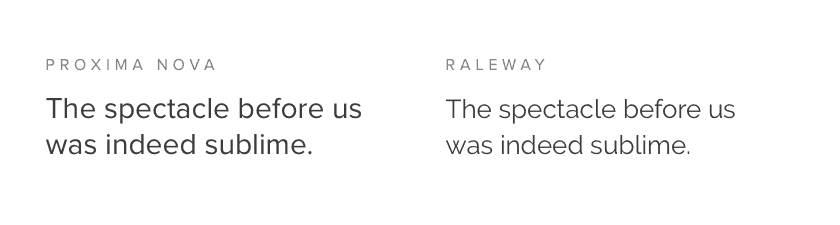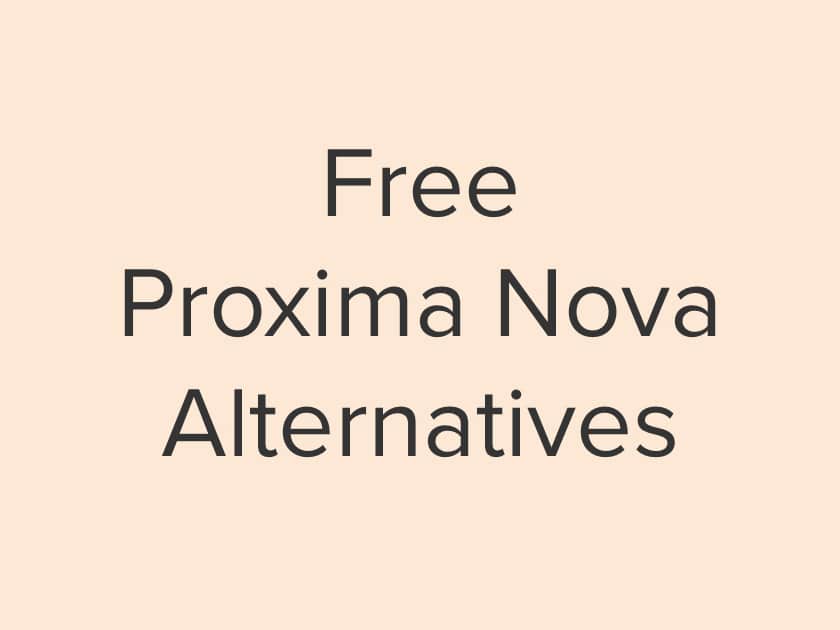
Free Proxima Nova Font Alternatives
Proxima Nova is american type designer Mark Simonson’s most popular font family, a beautiful geometric-grotesque sans-serif that he created in 1994 and revised in 2005.
It’s one of my personal favorites, and one of the most used premium fonts on the web.
Metropolis
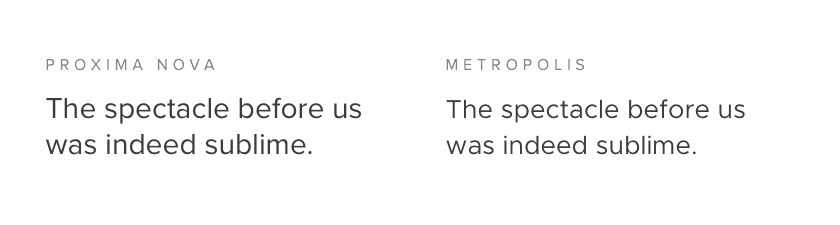
- PROS: The best alternative. Includes a whopping 18 styles: 9 weights (Thin, Extra Light, Light, Regular, Medium, Semi Bold, Bold, Extra Bold, Black) with matching italics)
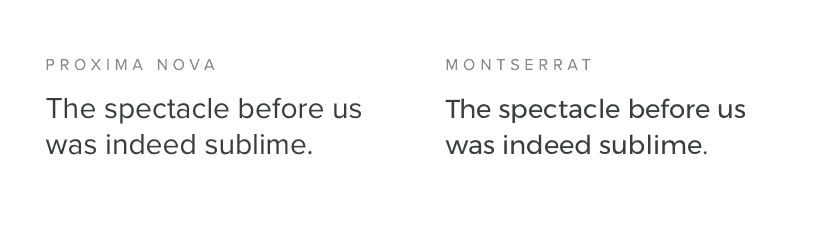
- PROS: Great alternative. Like Metropolis, it includes a whopping 18 styles: 9 weights (Thin, Extra-Light, Light, Regular, Medium, Semi-Bold, Bold, Extra-Bold, Black) with matching italics)
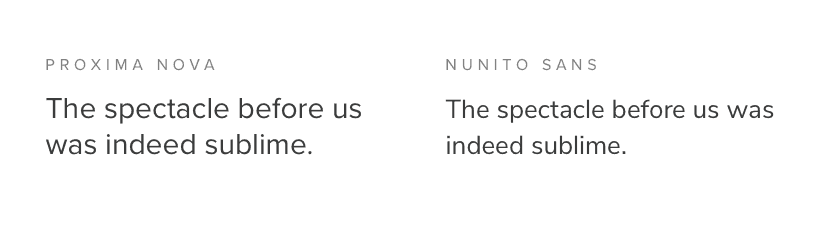
- PROS: Includes 14 styles: 7 weights (Extra-Light, Light, Regular, Semi-Bold, Bold, Extra-Bold, Black) with matching italics.
Muli
- PROS: Like Nunito Sans, it includes 14 styles: 7 weights (Extra-Light, Light, Regular, Semi-Bold, Bold, Extra-Bold, Black) with matching italics.
Acherus Grotesque
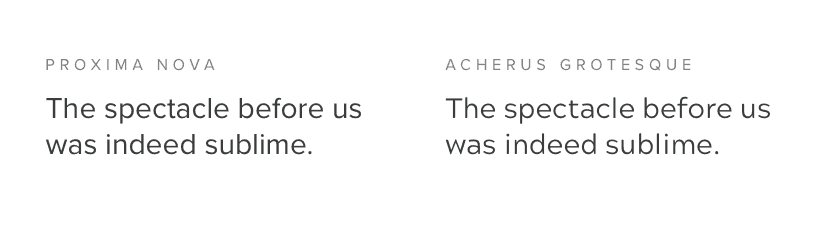
- PROS: Includes 16 styles: 8 weights (Thin, UltraLight, Light, Regular, Medium, Bold, ExtraBold, Black) with matching italics.
- PROS: Like Metropolis and Montserrat, it includes 18 styles: 9 weights (Thin, Extra-Light, Light, Regular, Medium, Semi-Bold, Bold, Extra-Bold, Black) with matching italics.
Palanquin
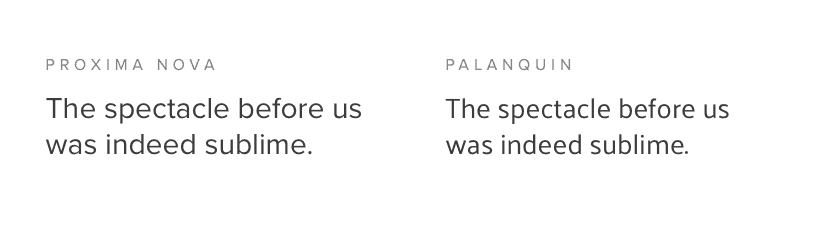
- PROS: Includes 4 weights (Thin, Extra-Light, Light, Regular, Medium, Semi-Bold, Bold).
- CONS: Doesn’t have italics.
Hind Guntur
- PROS: Includes 4 weights (Light, Regular, Medium, Semi-bold, Bold).
- CONS: Doesn’t have italics.